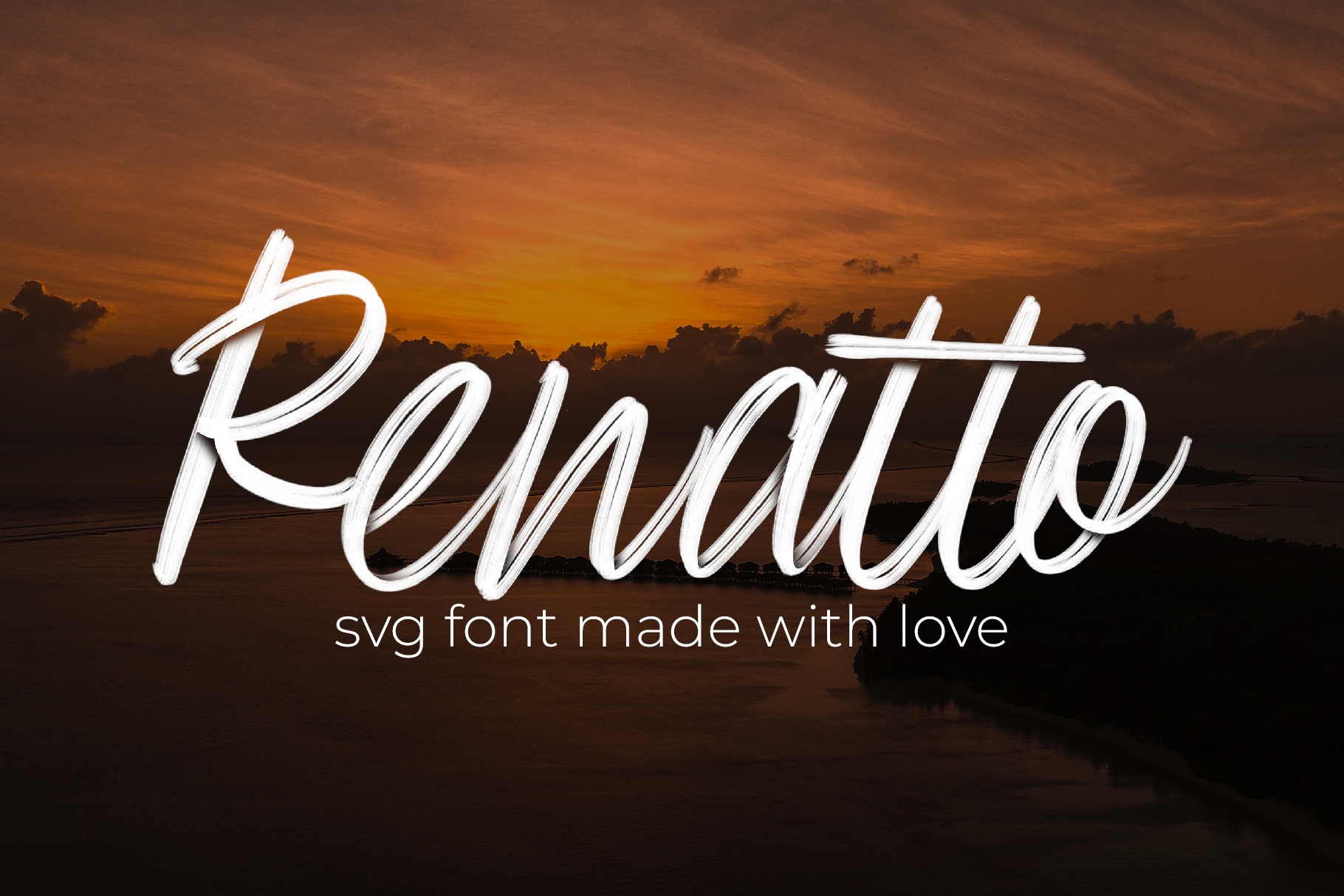
Renatto svg font
Introducing SVG font Renatto!
Renatto is ideal for headlines and short phrases or quotes.
The font is uses a high quality bitmap images, with added texture and shading effect. What you see in the previews is exactly how the font types, nothing added beyond that.
Best use on dark background so shades would look more realistic.